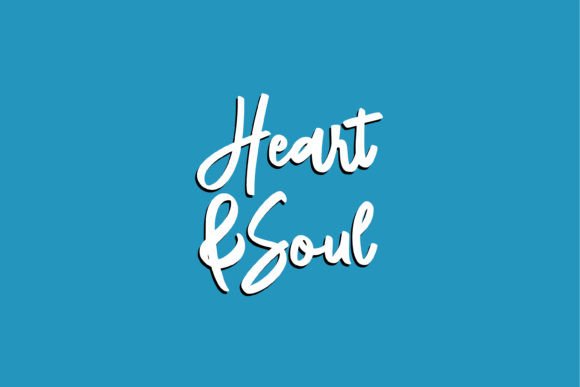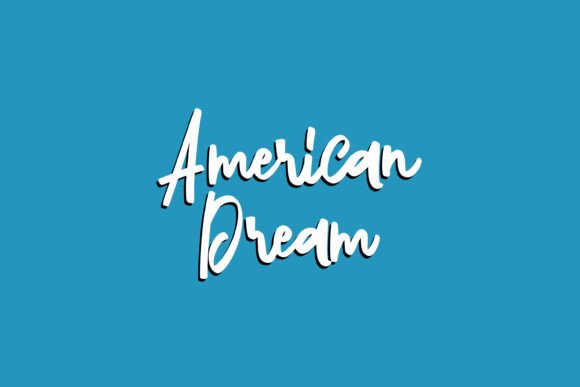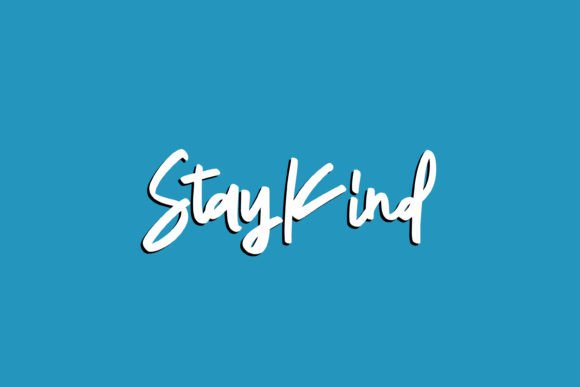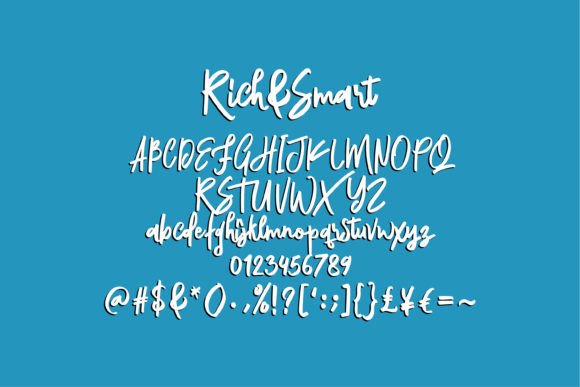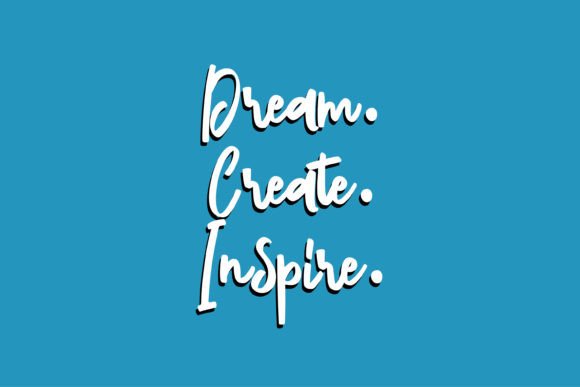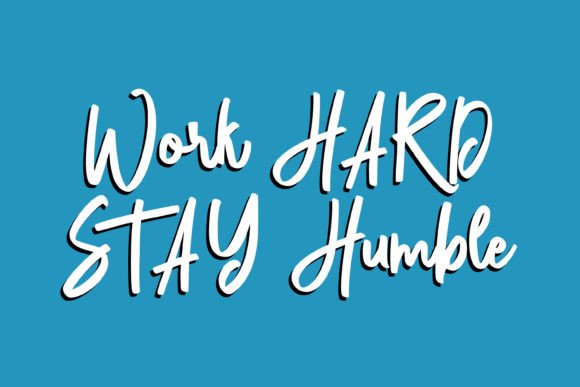
Introduction to Rich & Smart Font
The moment of truth arrives when you’re about to unleash your creative project onto the world. You’ve spent hours perfecting the design, and now it’s time to give it that final touch – the signature logo that will make it truly unforgettable. As a designer, you know that the right font can elevate your entire creation, making it stand out in a sea of sameness.
That’s where Rich & Smart Font comes in – a beautiful, high-quality handwritten font designed specifically for professionals who demand the best. With its elegant lines and sophisticated flair, this font is the perfect choice for creating professional signature logos, photo logos, labels, packaging, and more.
Whether you’re working on a personal project or a corporate campaign, Rich & Smart Font is a valuable resource that will help you take your design to the next level. And the best part? It’s available for free download, complete with ligature, swash, and multilingual support, making it a must-have for any design enthusiast.
Key Features of Rich & Smart Font
- High-quality, professional font designed for creative projects, ideal for use as a design resource.
- Features a transparent background, making it easy to layer over images and other design elements.
- Includes a comprehensive character set, including uppercase and lowercase letters, numbers, and punctuation marks.
- Designed to be highly legible, even at small font sizes, making it perfect for use in a variety of creative contexts.
Honest Review: Rich & Smart Font
I recently had the chance to work with the Rich & Smart Font, and I must say it’s been a game-changer for my design projects. This font is a great addition to any design resource, offering a sleek and modern look that’s perfect for creative projects.
- ✨ High quality design: The Rich & Smart Font is incredibly well-crafted, with smooth lines and a consistent aesthetic.
- ✨ Versatile use: This font can be used for a wide range of applications, from web design to print materials.
However, I did encounter a few limitations while using the font. One issue is that the transparent background option can be a bit finicky to work with, especially when combining it with other design elements. Additionally, the font may not be as suitable for projects that require a more conservative or traditional look.
Overall, I’m thoroughly impressed with the Rich & Smart Font and would highly recommend it to designers looking for a high-quality, modern font for their creative projects.
Tips for Getting the Most Out of Rich & Smart Font
Use the font on a transparent background for a modern and sleek look. You can also use it as a design element in your creative project. The high-quality font is perfect for free download and use in various design applications.
The Rich & Smart Font is ideal for creating professional-looking documents, presentations, and designs. You can use it for headings, titles, and body text in various design projects.